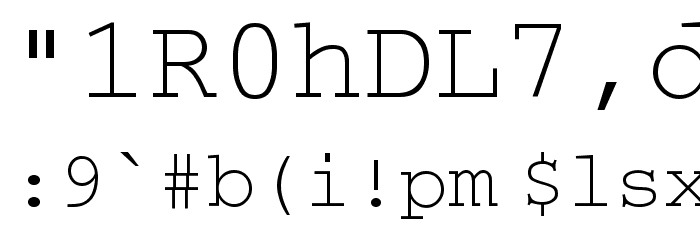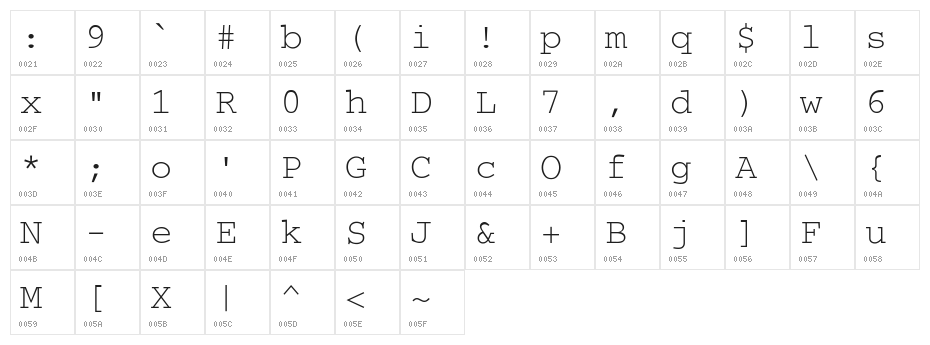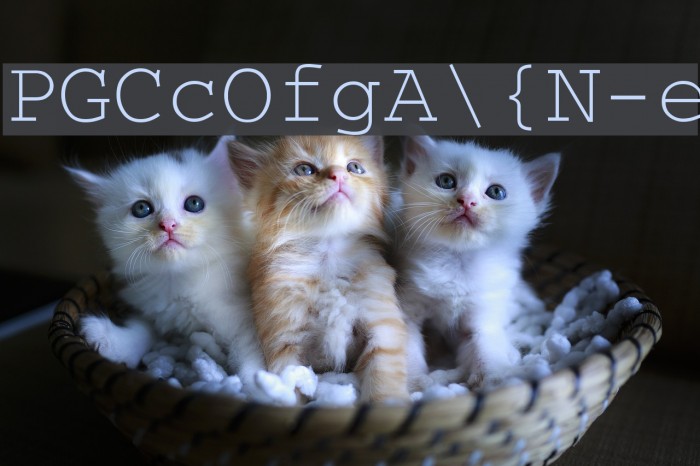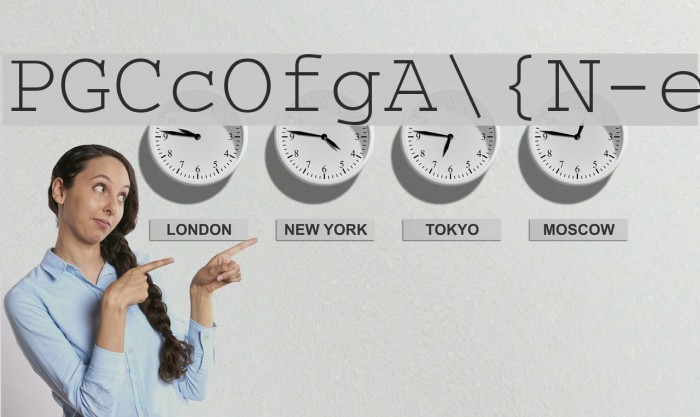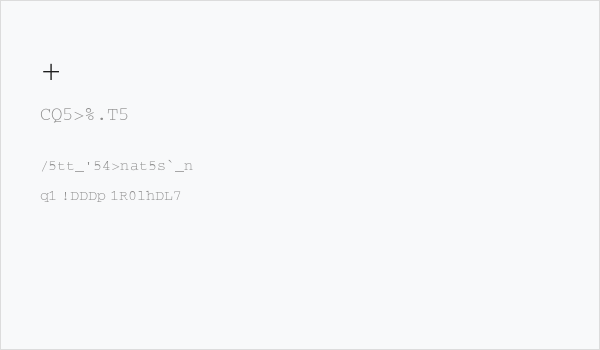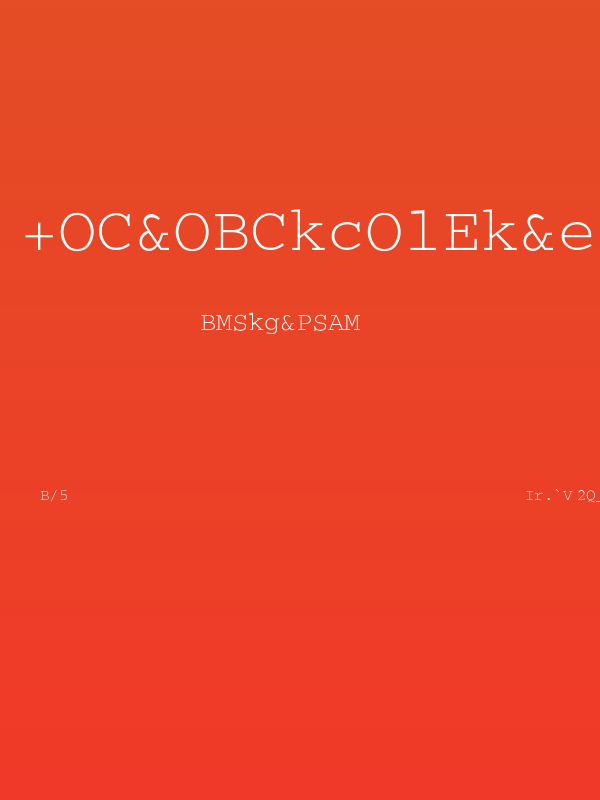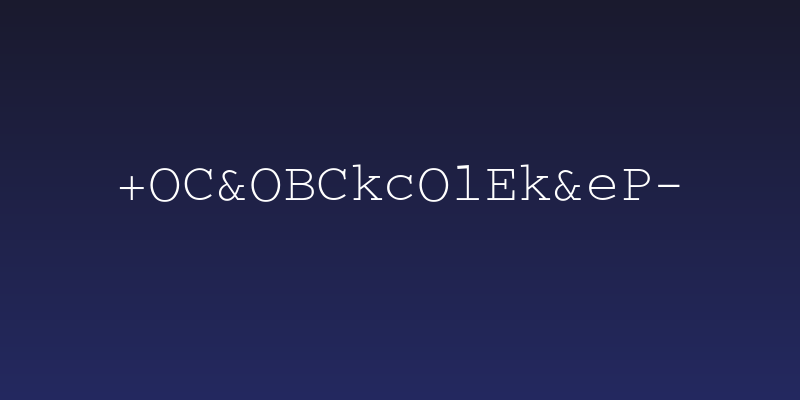
SecretCode-Normal Font
SecretCode-Normal Description
This font exhibits a clean and modern aesthetic with a monospaced design. Each character is evenly spaced, providing a uniform appearance that is ideal for coding and technical documentation. The strokes are consistent in width, offering a low contrast that enhances readability. The characters are well-defined, with a geometric structure that emphasizes clarity and precision. The font includes a full set of uppercase and lowercase letters, numerals, and a variety of special characters, making it versatile for various applications. Its straightforward style is both functional and visually appealing, suitable for professional and creative projects alike.